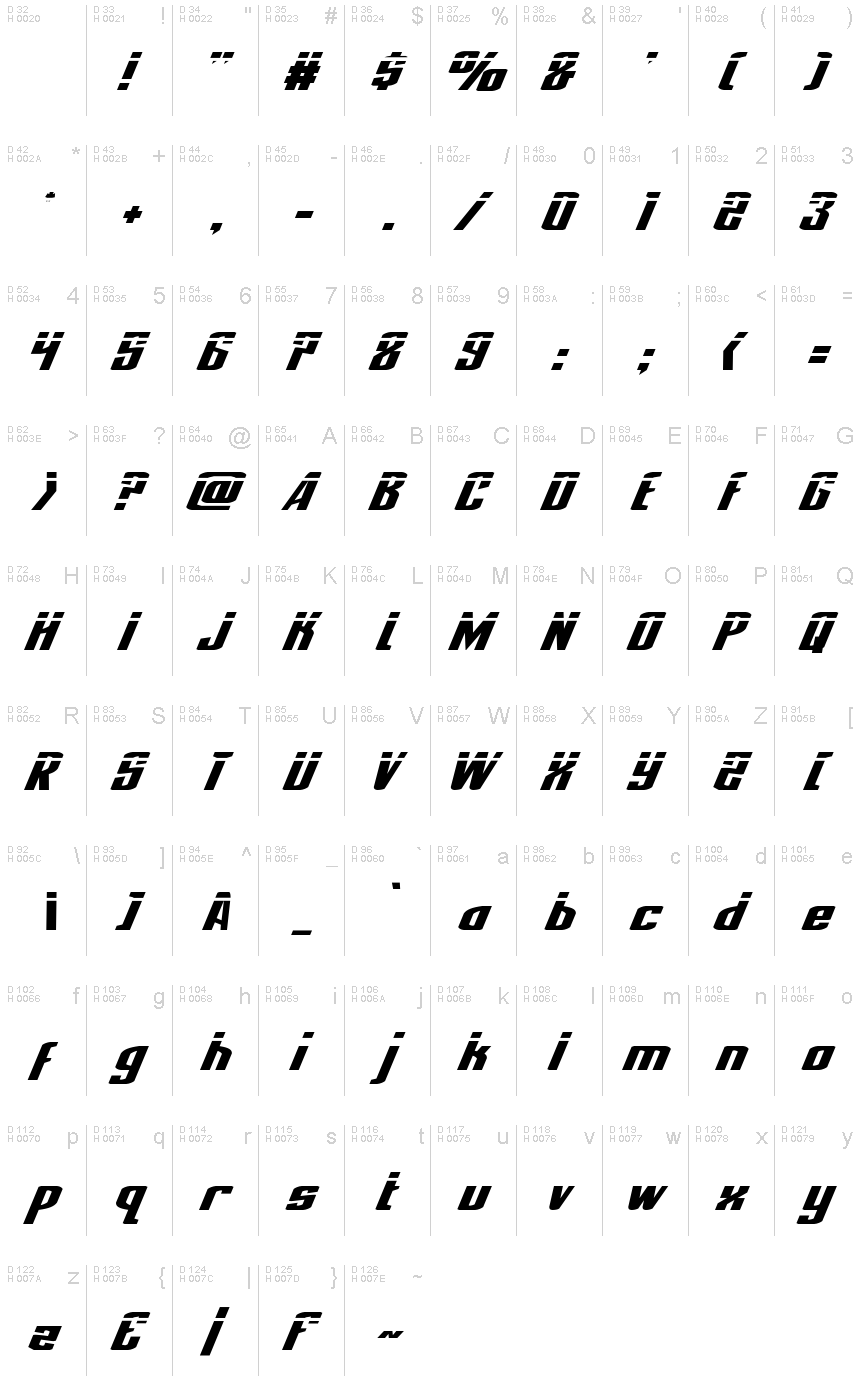
National Express Laser Italic
National Express Laser Italic is a striking display font that exudes a futuristic, techno-inspired aesthetic. Designed by Daniel Zadorozny, this italic variant of the National Express font family boasts sharp, angular letterforms that convey a sense of speed and dynamism. The laser-like detailing and sleek, minimalist lines give this font a distinctly modern and industrial vibe, making it a versatile choice for a range of design applications, from branding and packaging to event promotions and digital interfaces.
Its bold, attention-grabbing presence lends itself well to headlines, titles, and short bursts of text, where its unique character can truly shine. National Express Laser Italic's strong visual impact and technological undertones make it an excellent option for projects that require a futuristic or high-tech aesthetic, such as tech companies, scientific agencies, or cutting-edge publications.